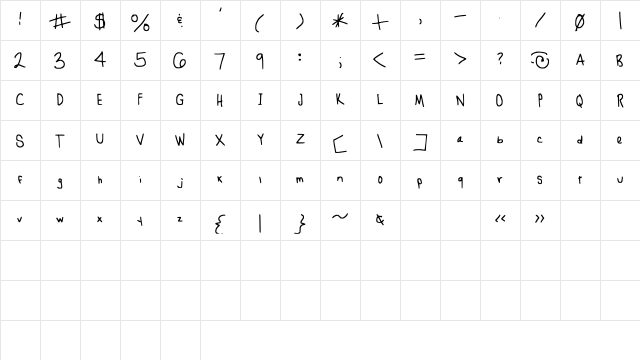
Hit me, punk! 14 Regular Free Font
Hit me, punk! 14 Regular
Designer: junkohanhero
Design Context for Hit me, punk! 14
Hit me, punk! 14 is a composed and adaptable typeface that performs quietly and consistently across a wide range of design contexts.
Pro Tip: Use Hit me, punk! 14 in both headline and body roles to test its range before committing to a single application.